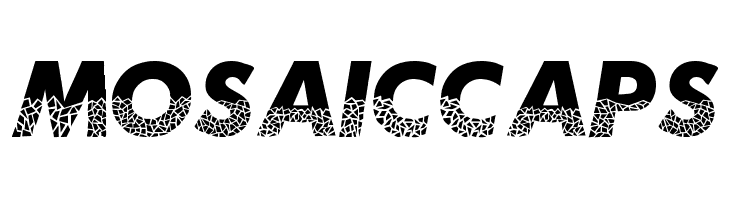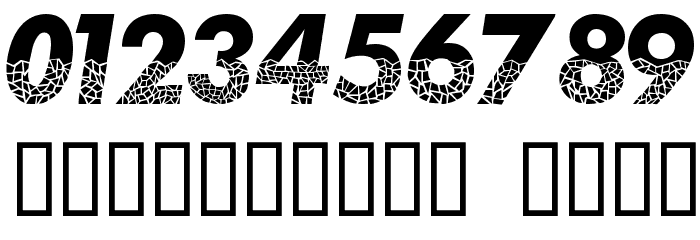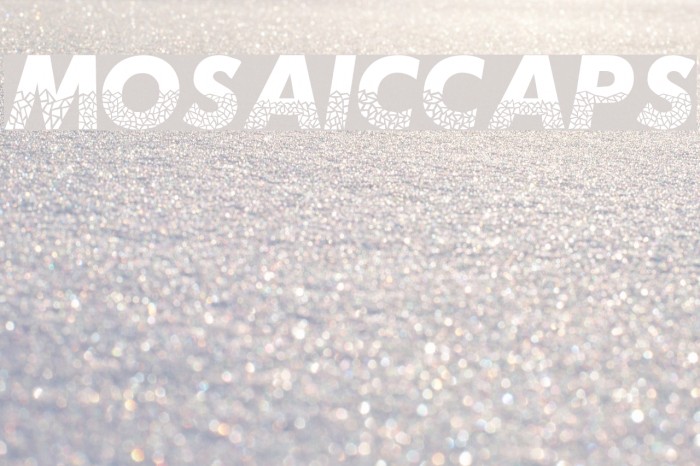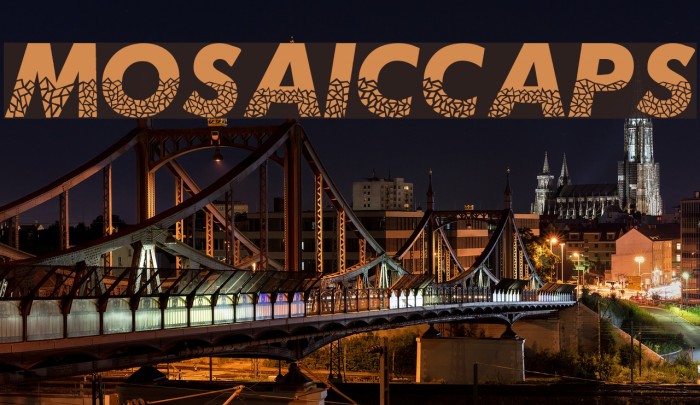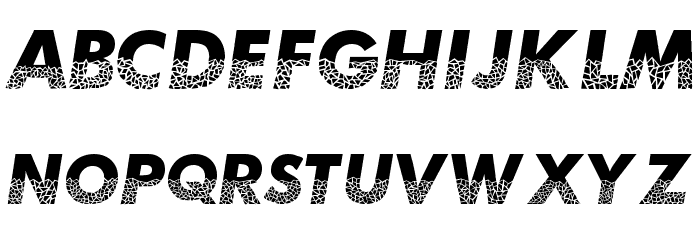
MosaicCaps Font
MosaicCaps Description
This font features a bold and dynamic design with a mosaic pattern filling each character. The uppercase letters are prominent and slightly italicized, giving a sense of movement and energy. The numbers and special characters follow the same stylistic approach, maintaining consistency across the font. The mosaic pattern adds a decorative and artistic touch, making it stand out for creative projects.
A bold, mosaic-patterned font with an italicized style from Uncategorized fonts.
- Proposed Projects: Ideal for artistic projects, event posters, creative branding, and eye-catching headlines.